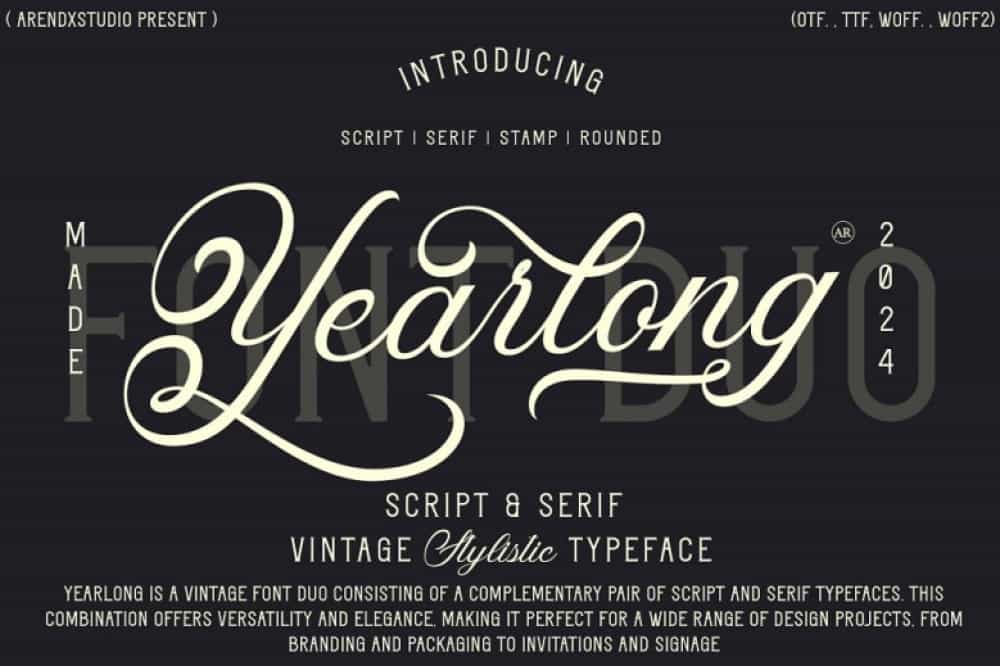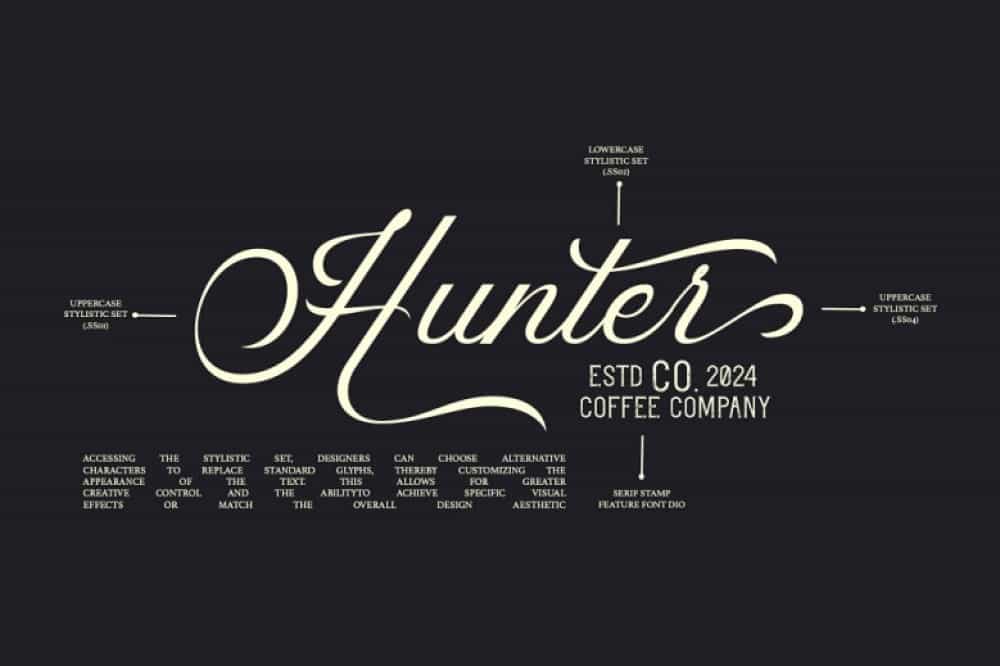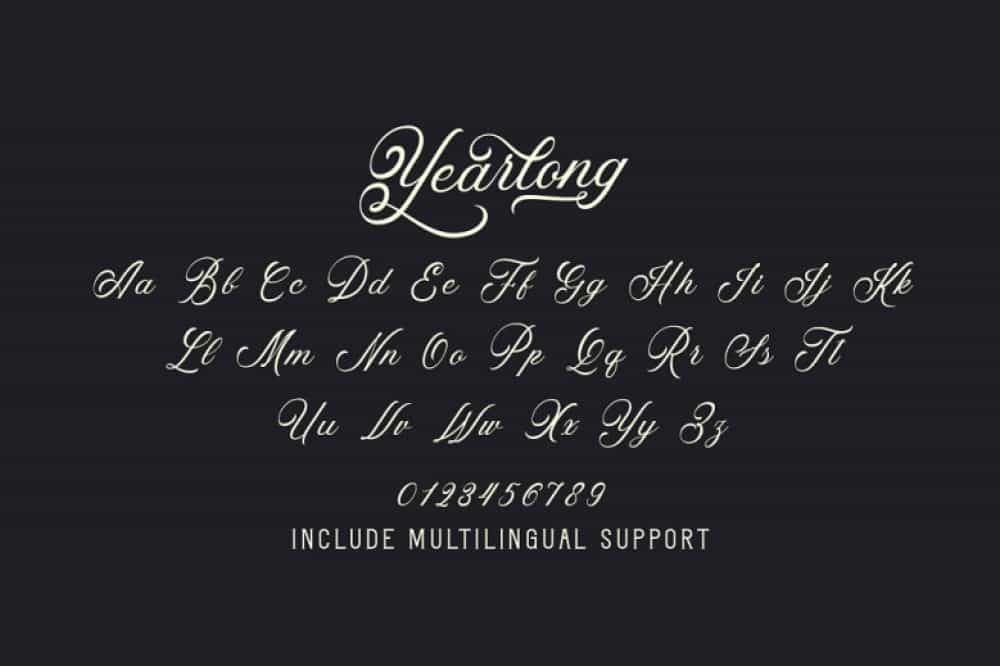
Yearlong is a duo font set of script and serif types that can go well together. This combination gives flexibility with style that can be used in various design projects such as logos, products, cards, signs among other. The vintage feel of “Yearlong” gives the art piece an old school but ever relevant look that can be incorporated into any design.